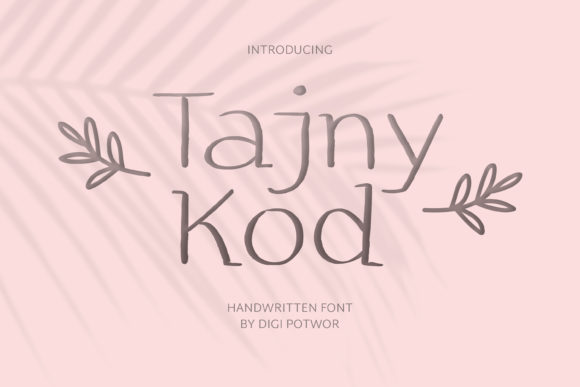
Let the expressive strokes of Tajny Kod Font ignite your creativity! This enchanting display font dances across your designs with a touch of whimsy and a dash of intrigue. Its clean lines and playful curves create a captivating harmony that will elevate your projects to new heights.
Indulge in the boundless possibilities that Tajny Kod offers. This versatile font family is the secret weapon you need to craft logos that pop, branding that captivates, and social media posts that spark engagement. Its playful spirit lends itself perfectly to crafty DIY projects, adding a touch of personality to every creation.
Whether you're a seasoned designer or simply a creative enthusiast, Tajny Kod empowers you to express yourself with flair. Its captivating details will draw eyes to your work, leaving a lasting impression that makes your projects shine. Unleash the magic of Tajny Kod and let your imagination soar!